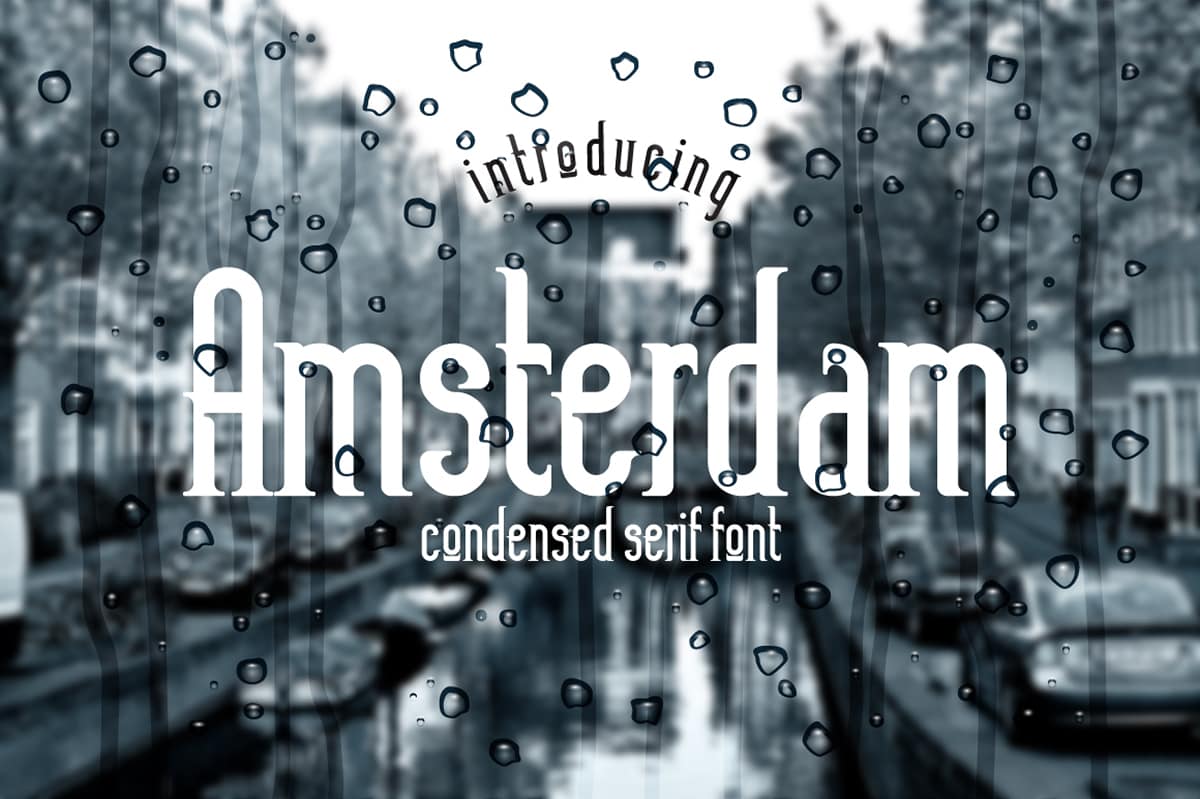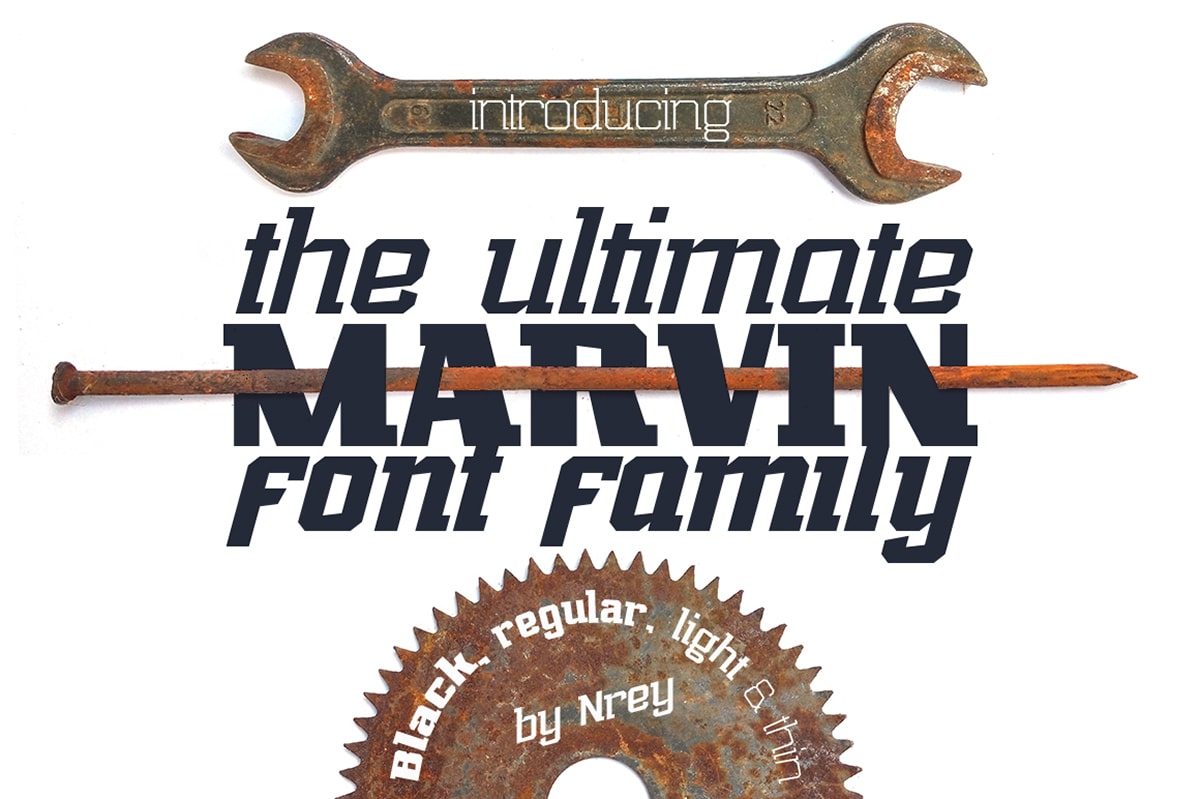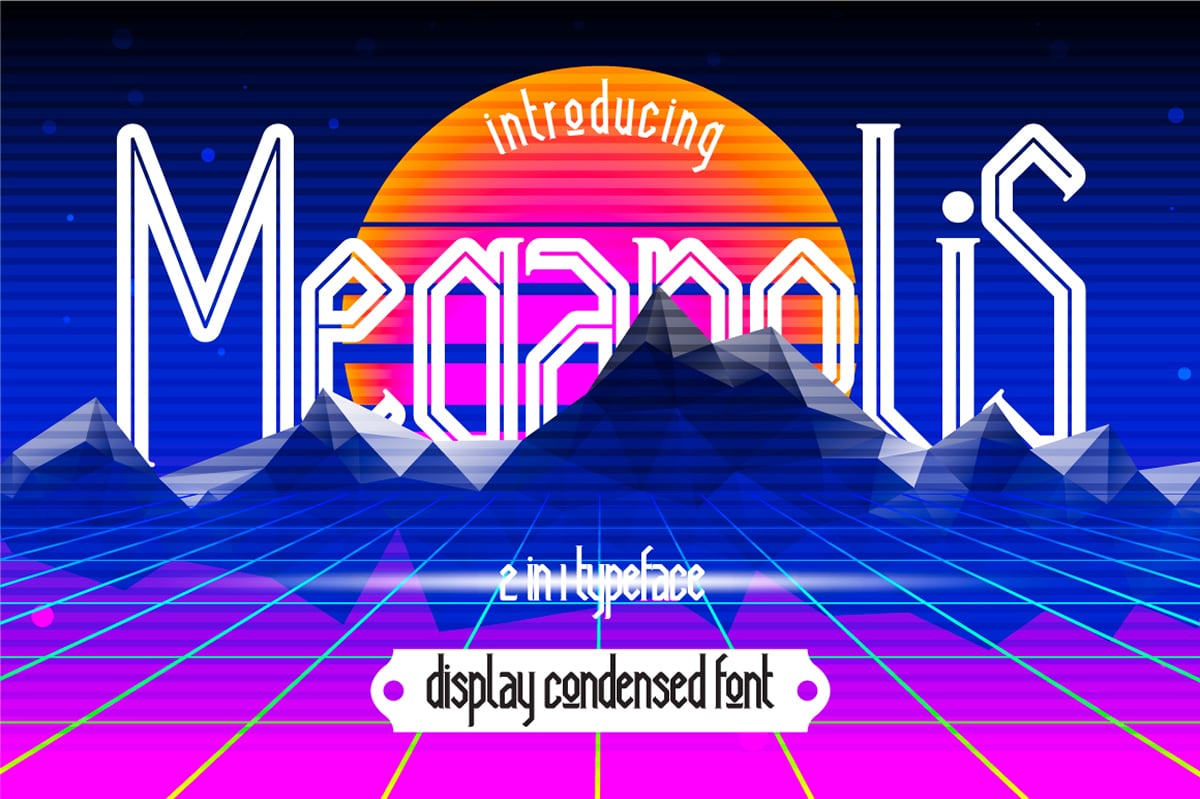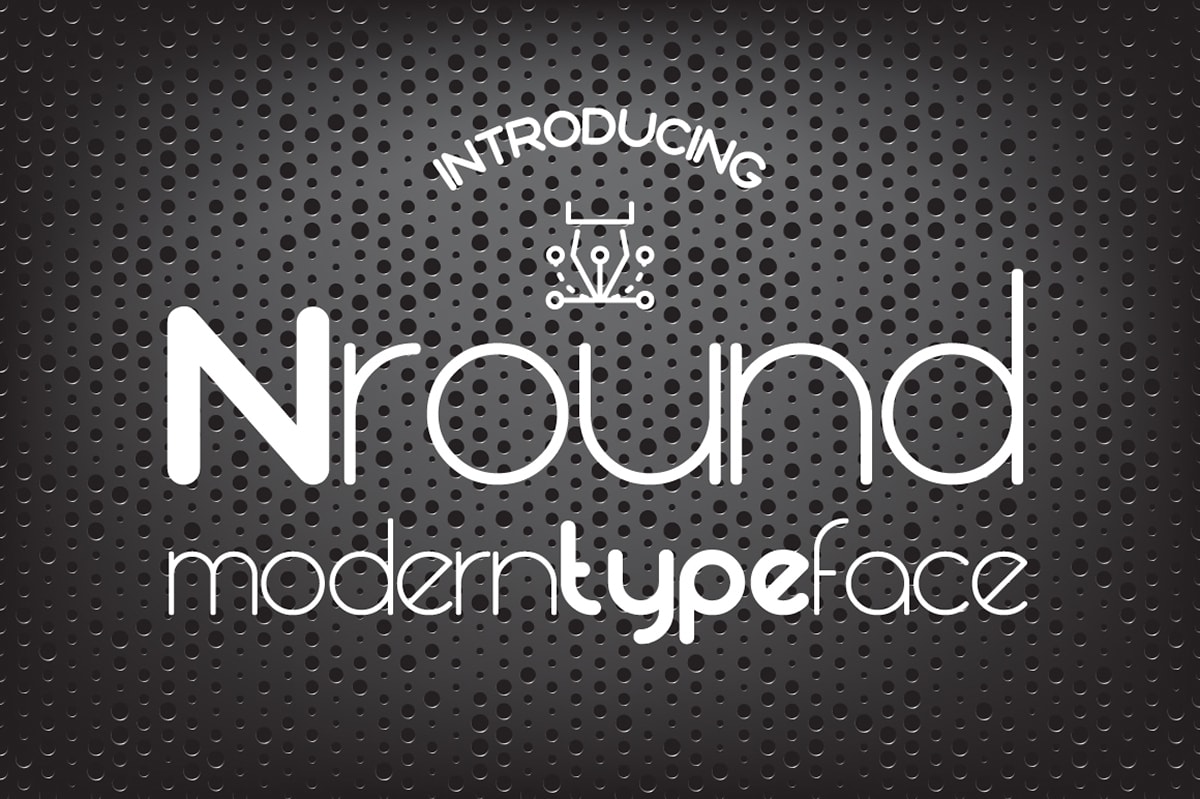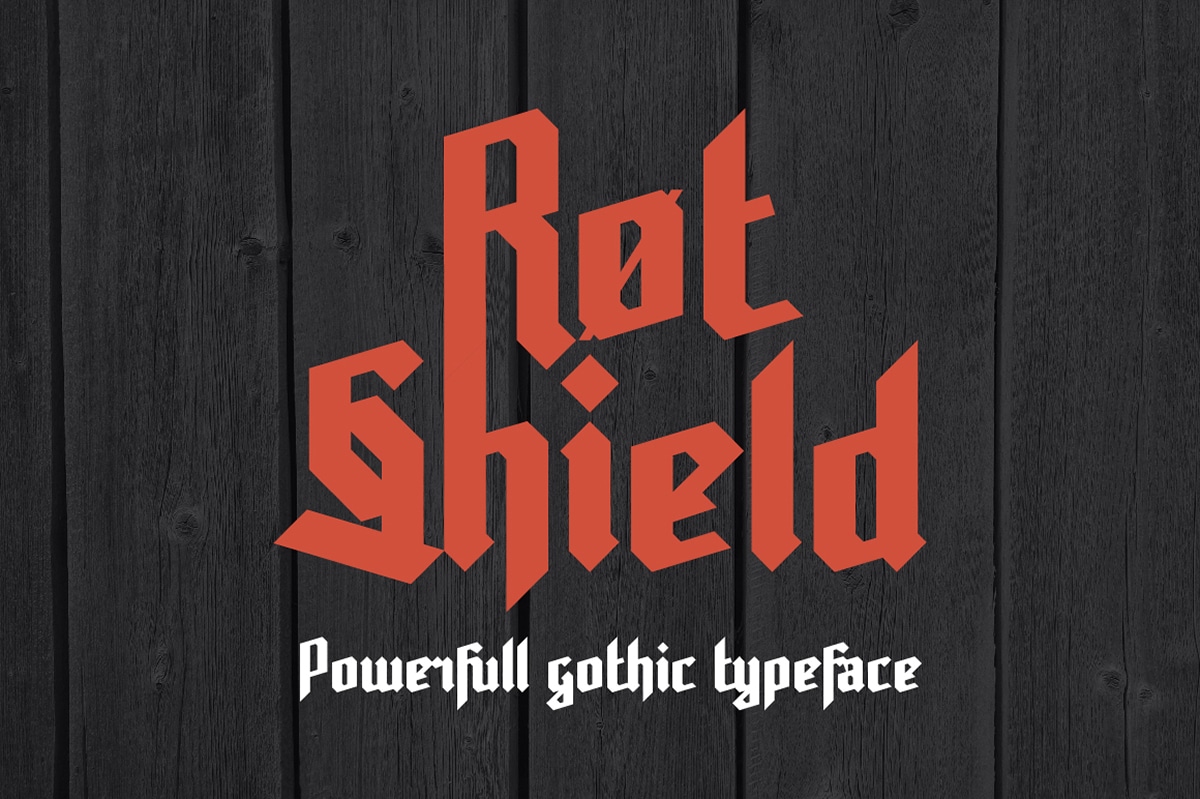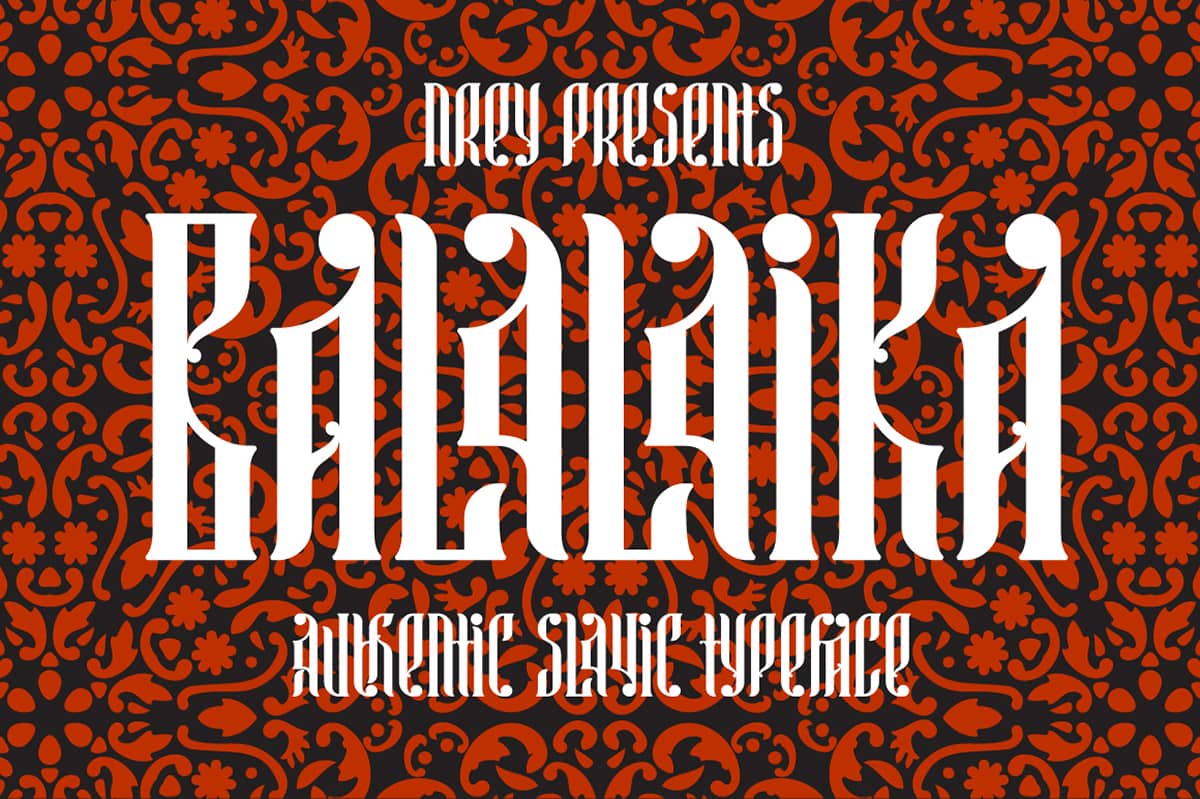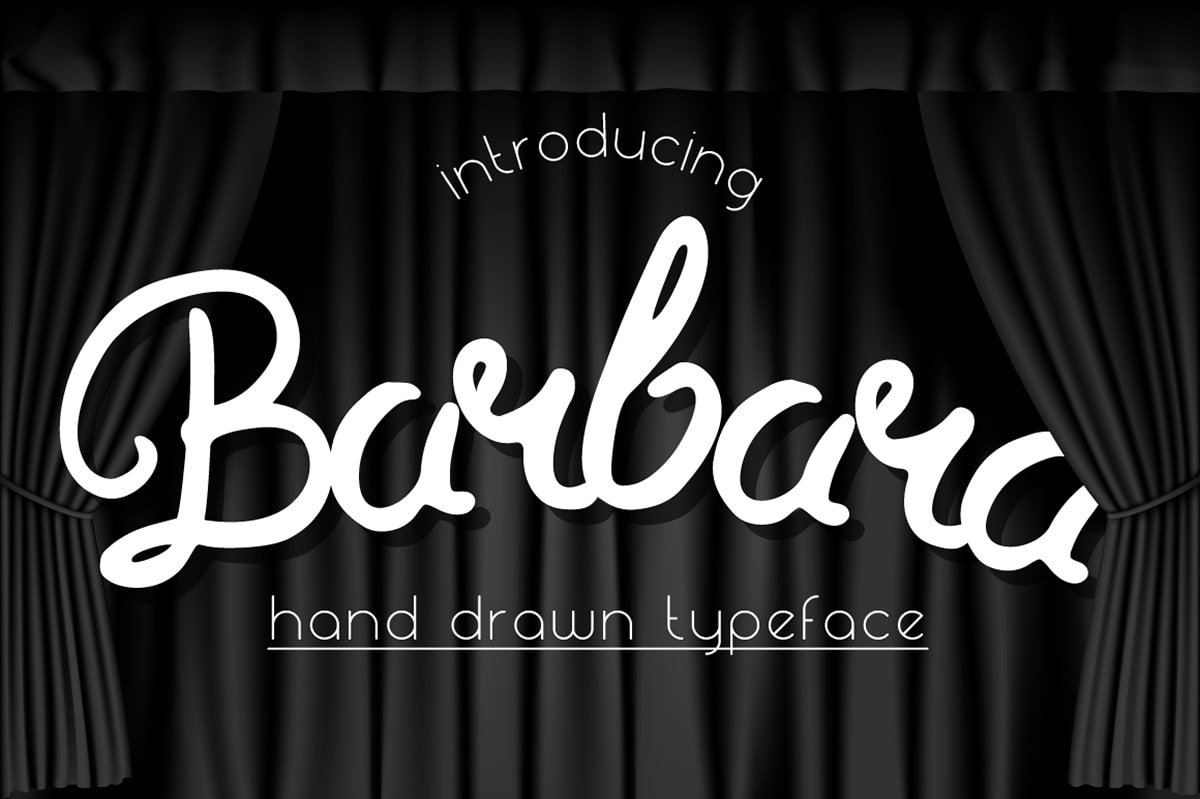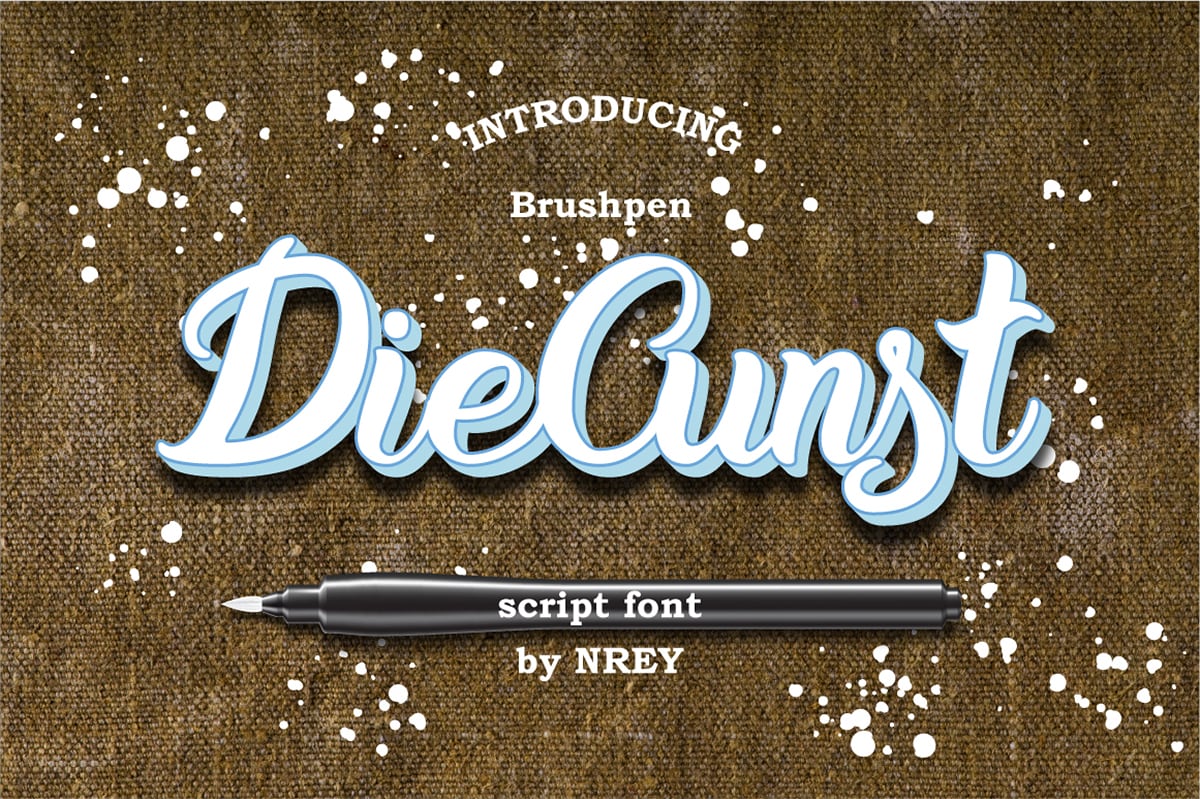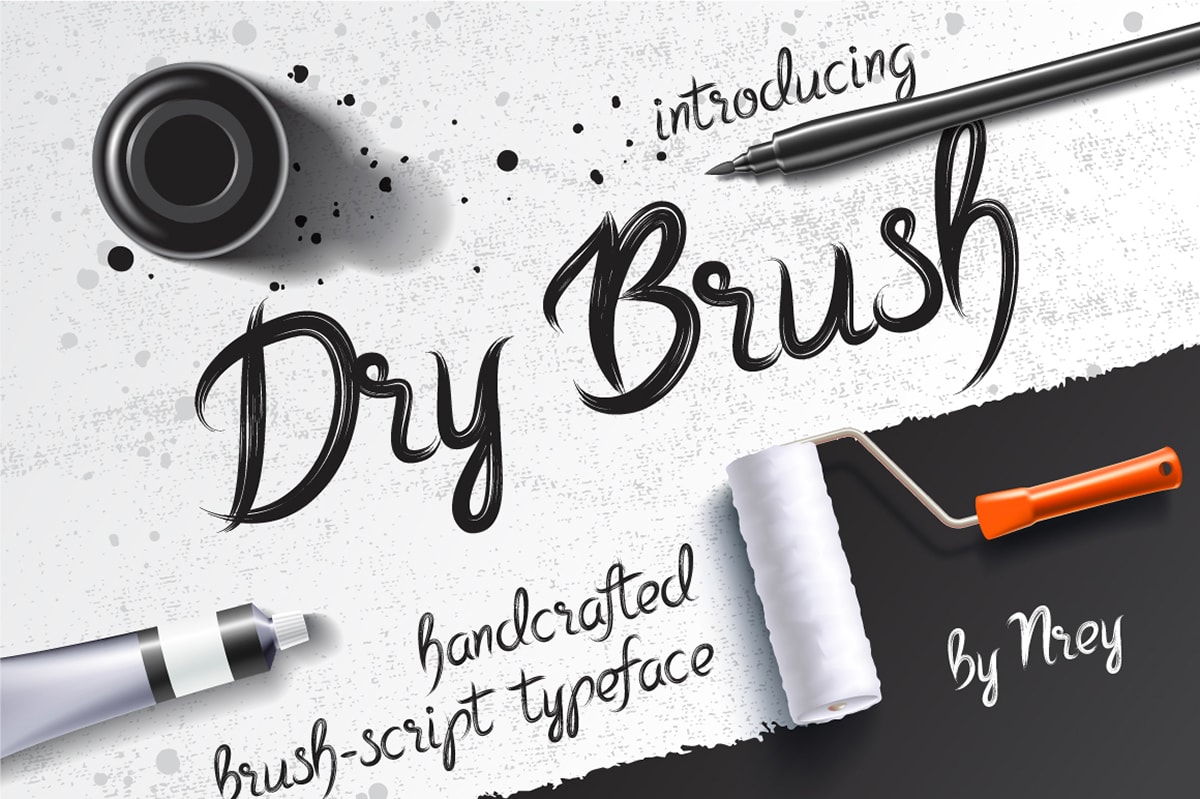
40 Display Fonts Bundle in 9 Type Design Styles. Multi-Language Support!
- Several weights and variations included for each font.
- Styles with ligatures, alternate characters, and multi language support.
- Includes Monolinear, Calligraphic, Gothic, Hand-Writting, Signature, Brush, Script, Condensed, and Vintage serif/sans-serif typefaces.
- Perfect bundle for all kinds of display projects and beyond.